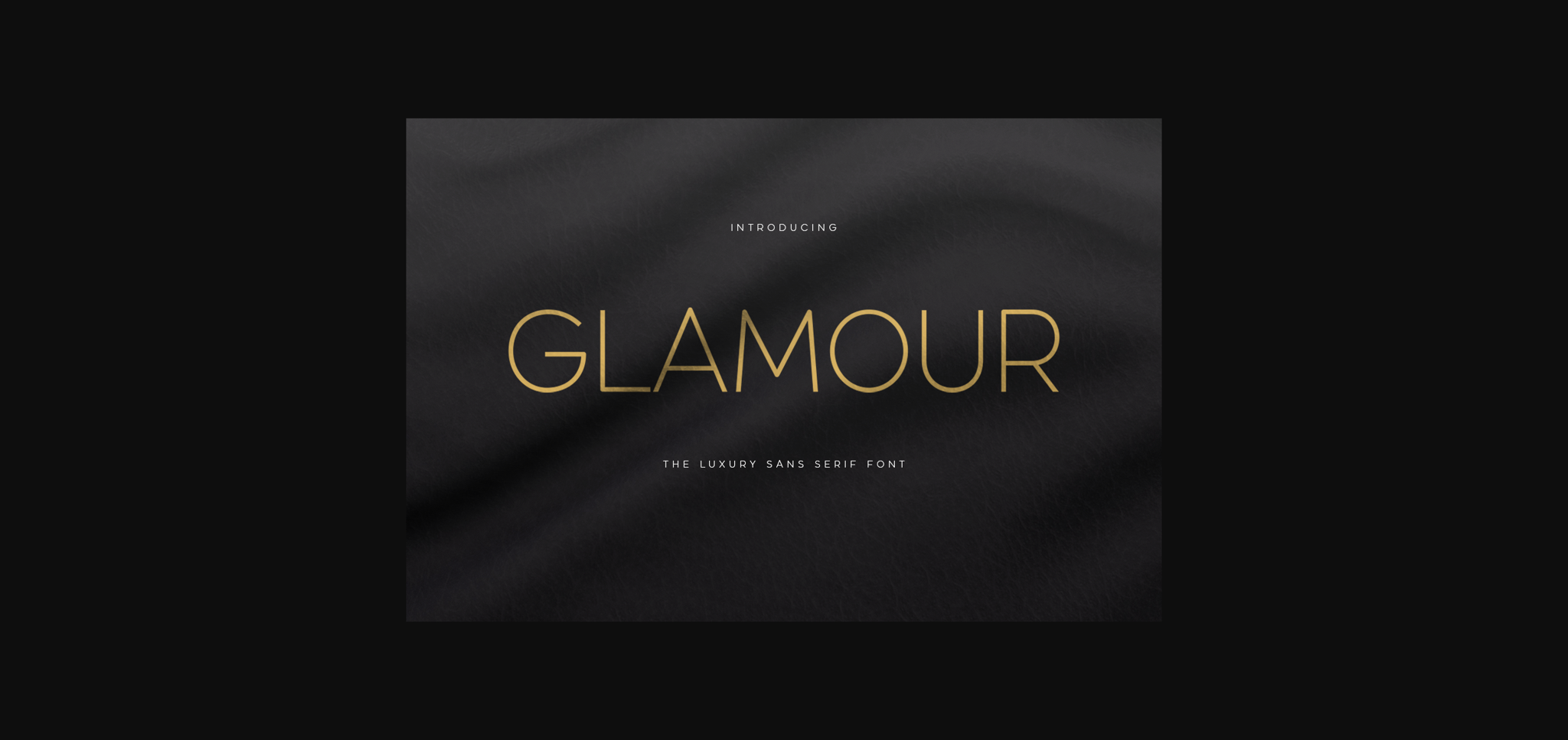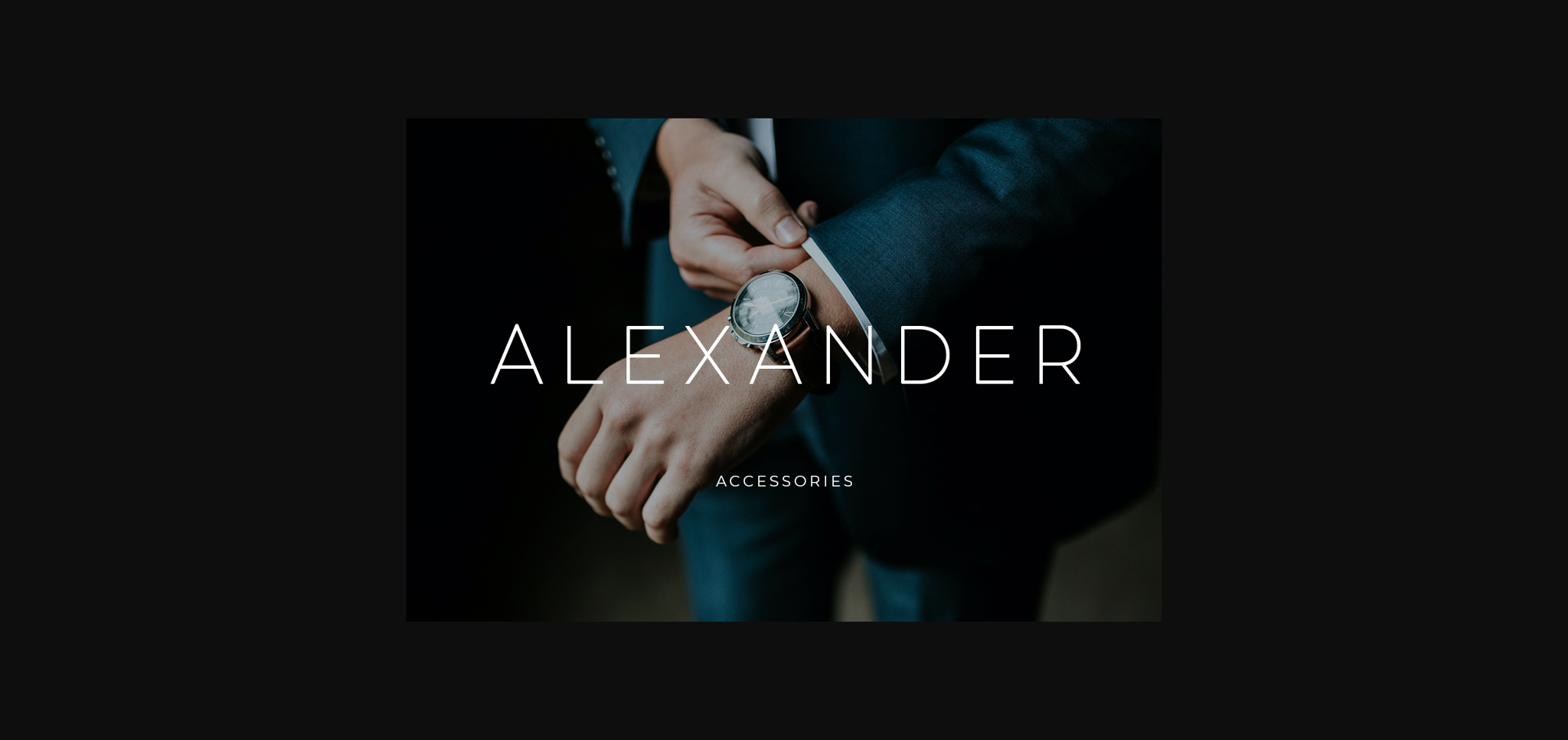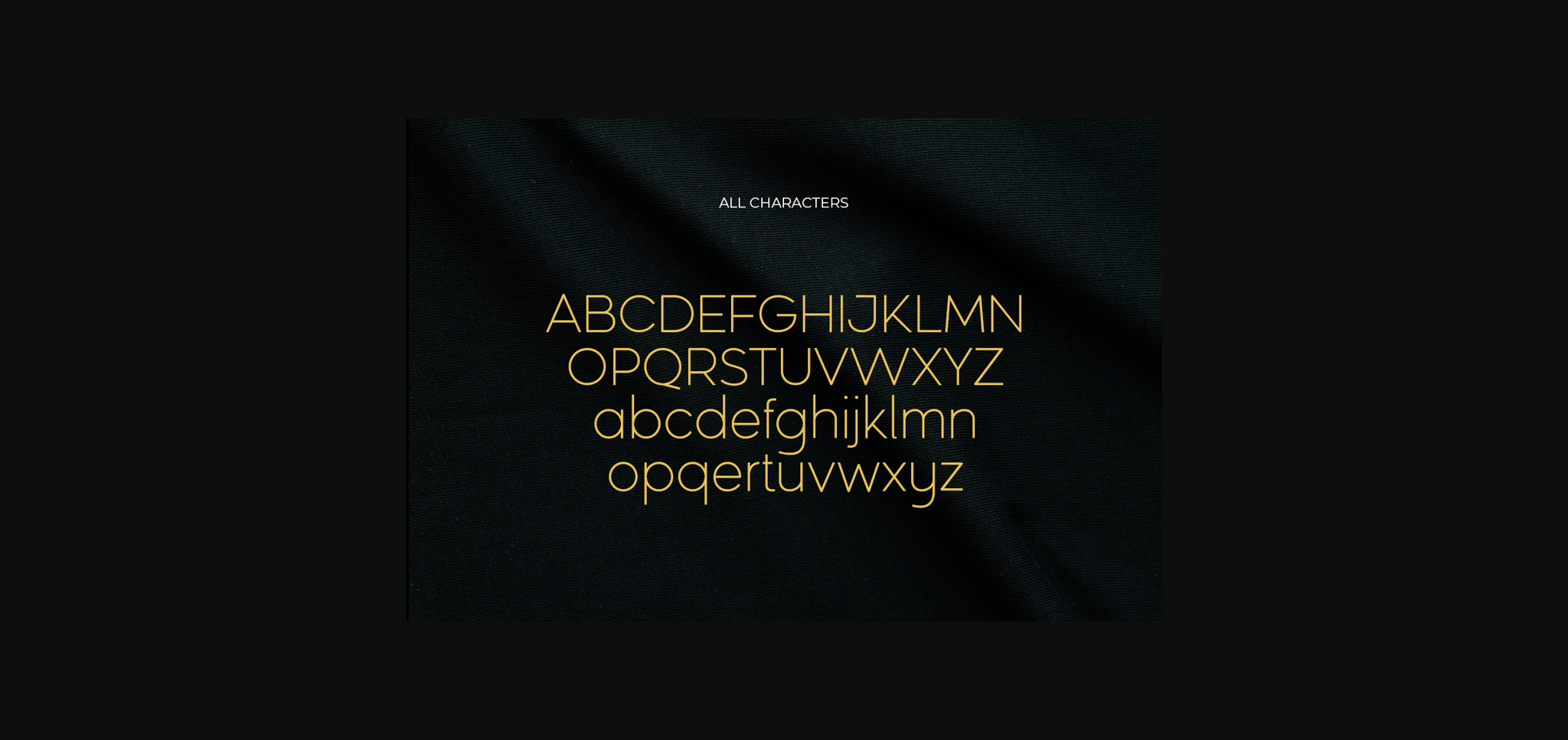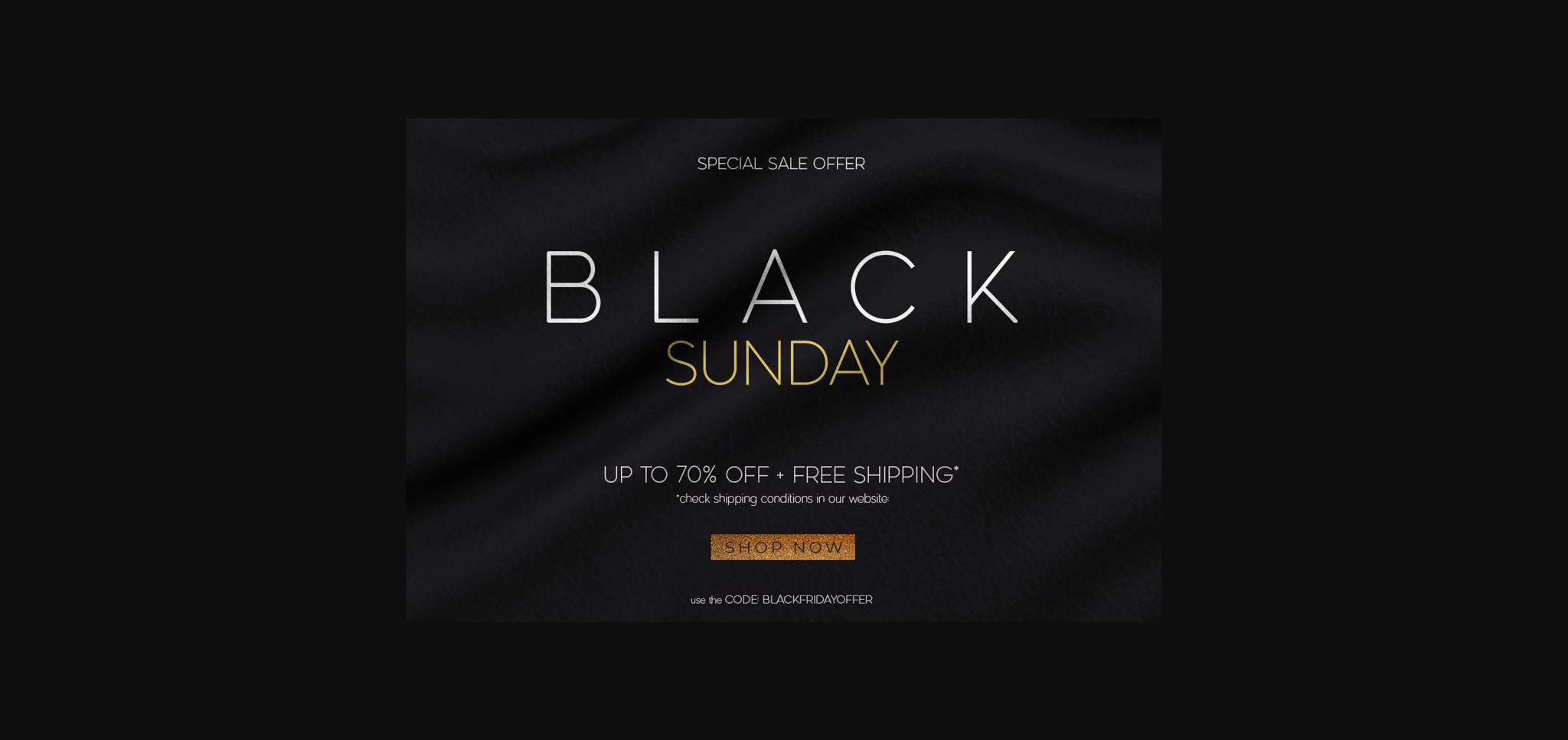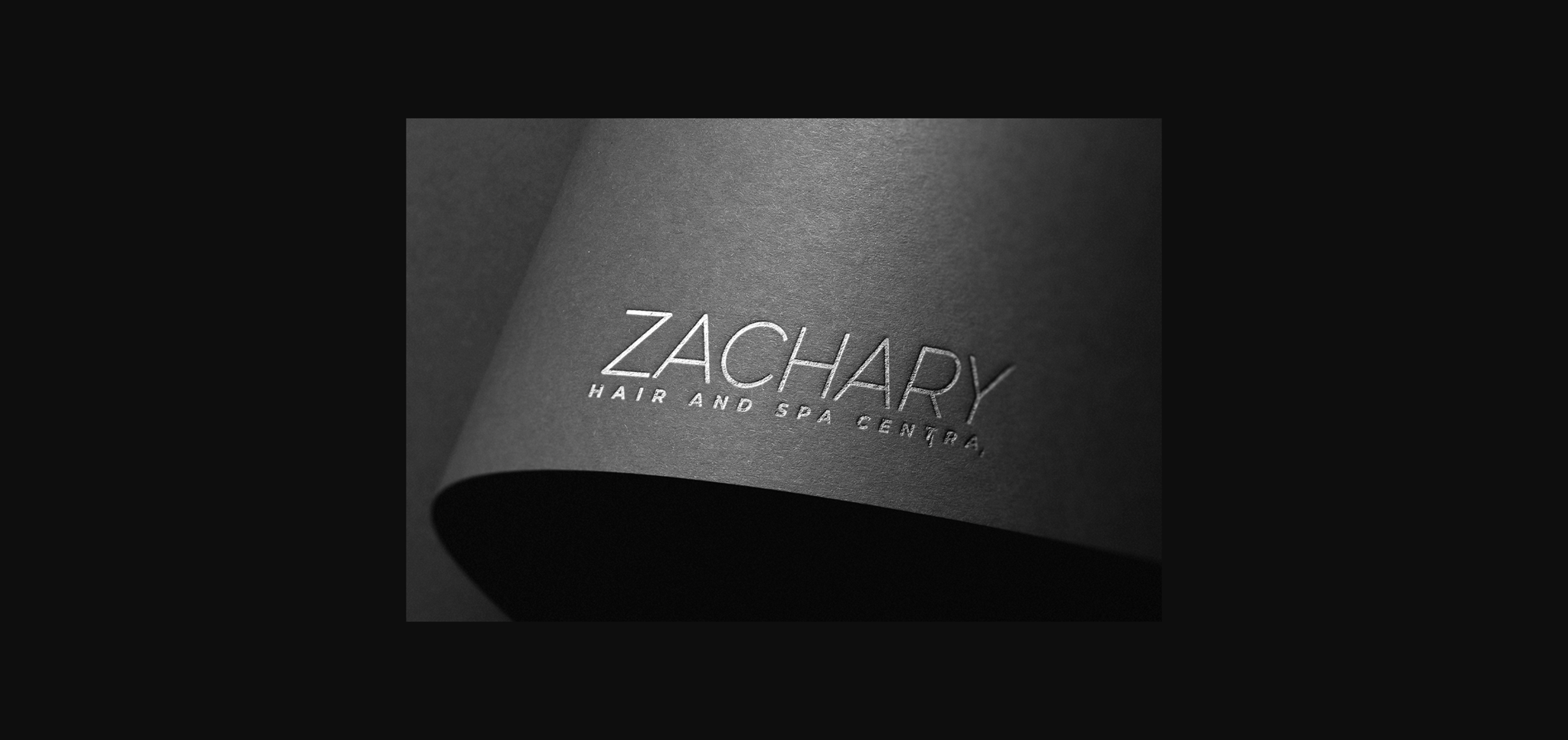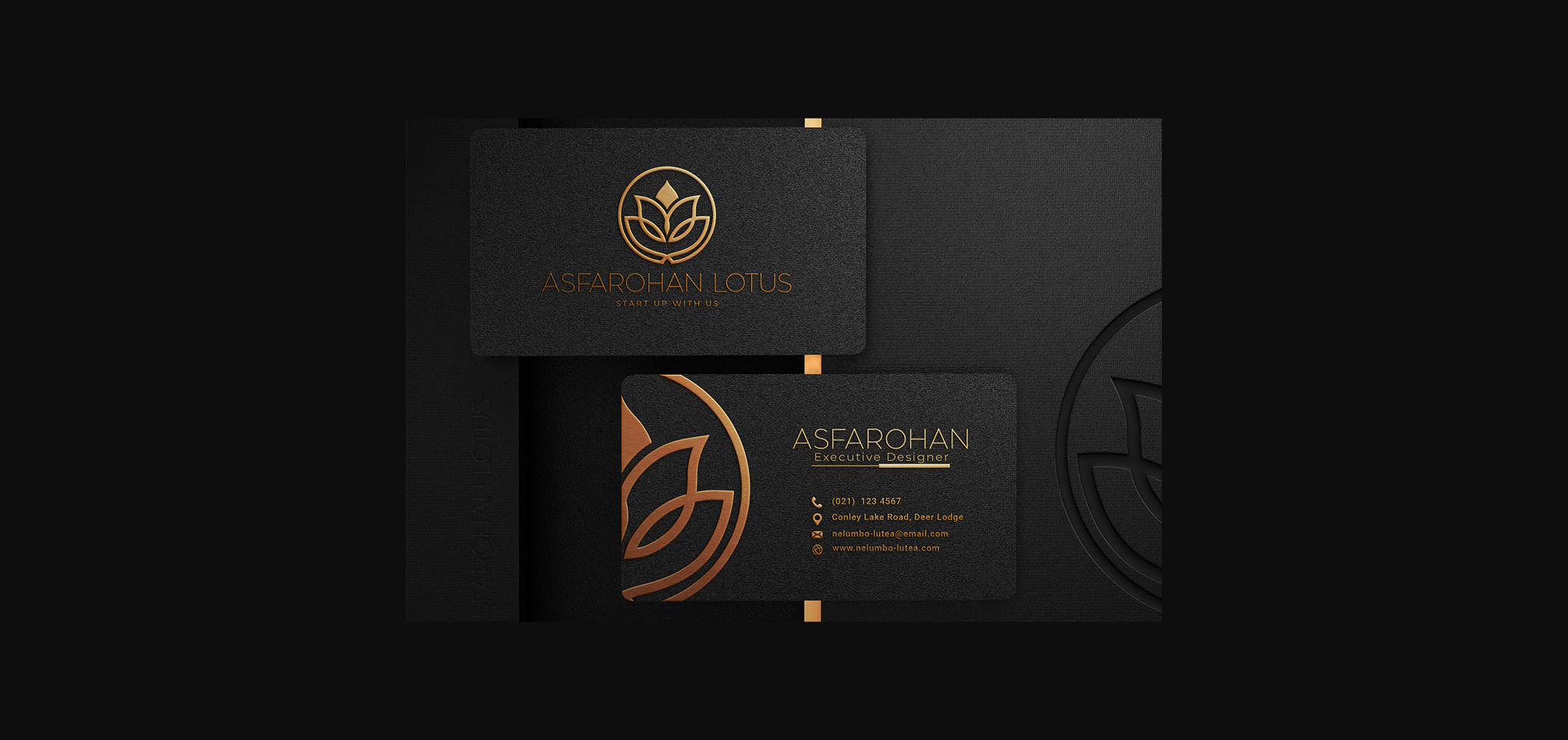
Glamour Font
About Glamour Font
Glamour is a stylish, minimalist sans-serif font exuding sophistication and elegance. With clean lines and balanced proportions, it brings a touch of modern refinement to any design project. Ideal for fashion magazines, luxury branding, and upscale websites, Glamour commands attention with its sleek and timeless appeal.